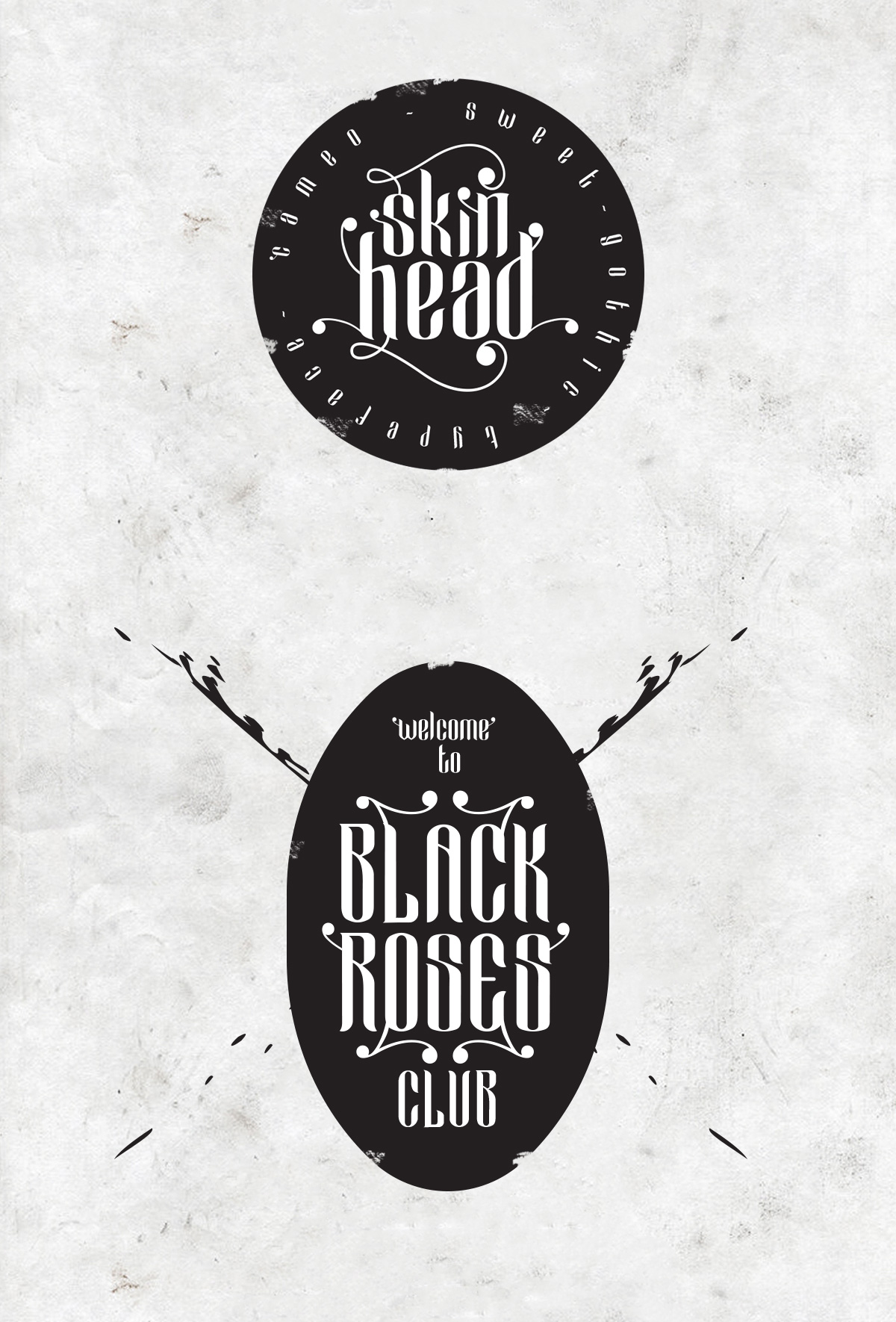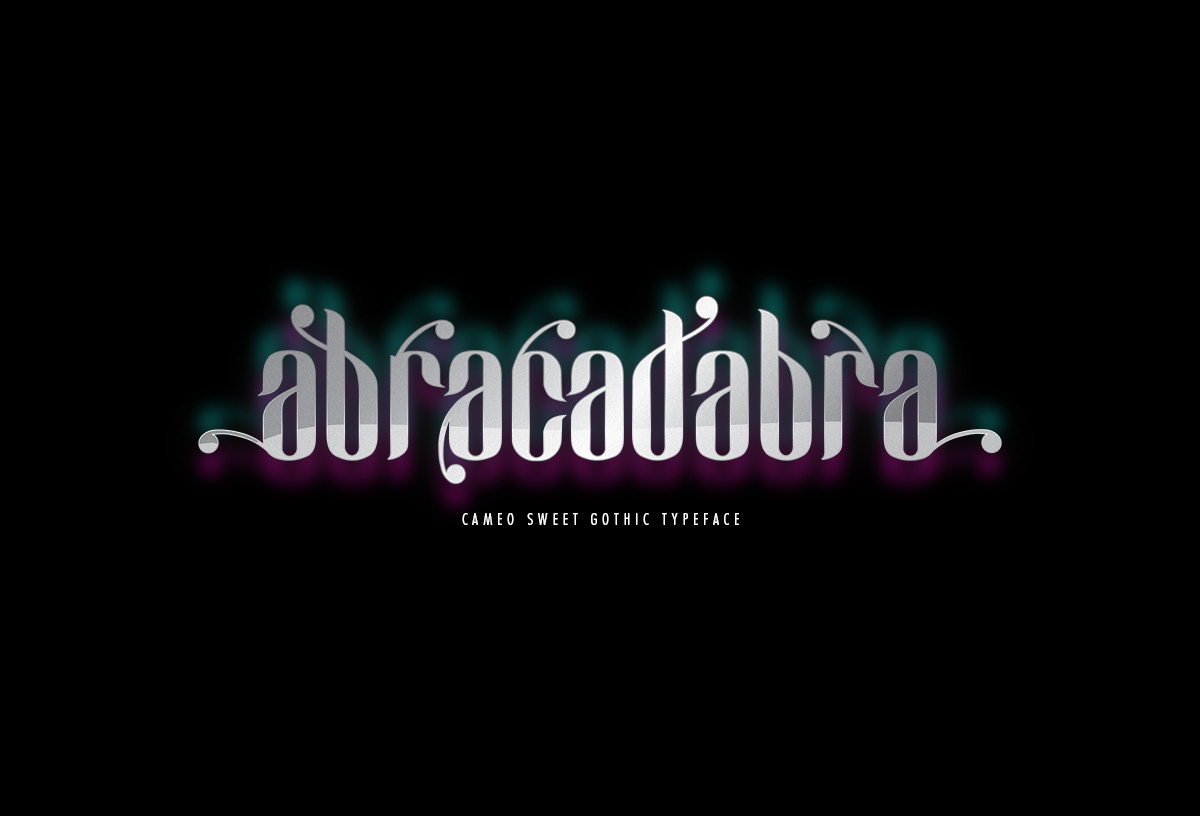
Cameo Sweet Gothic
Cameo Sweet Gothic Font
Cameo Sweet gothic typeface is a unique and stylist font, this font has stylistic set on each characters to match your design create a stong but sweet design using this font. perfect for logo design, clothing, poster and many more. enjoy
1. type “(” before word
2. type “)” after word
sample: (love)